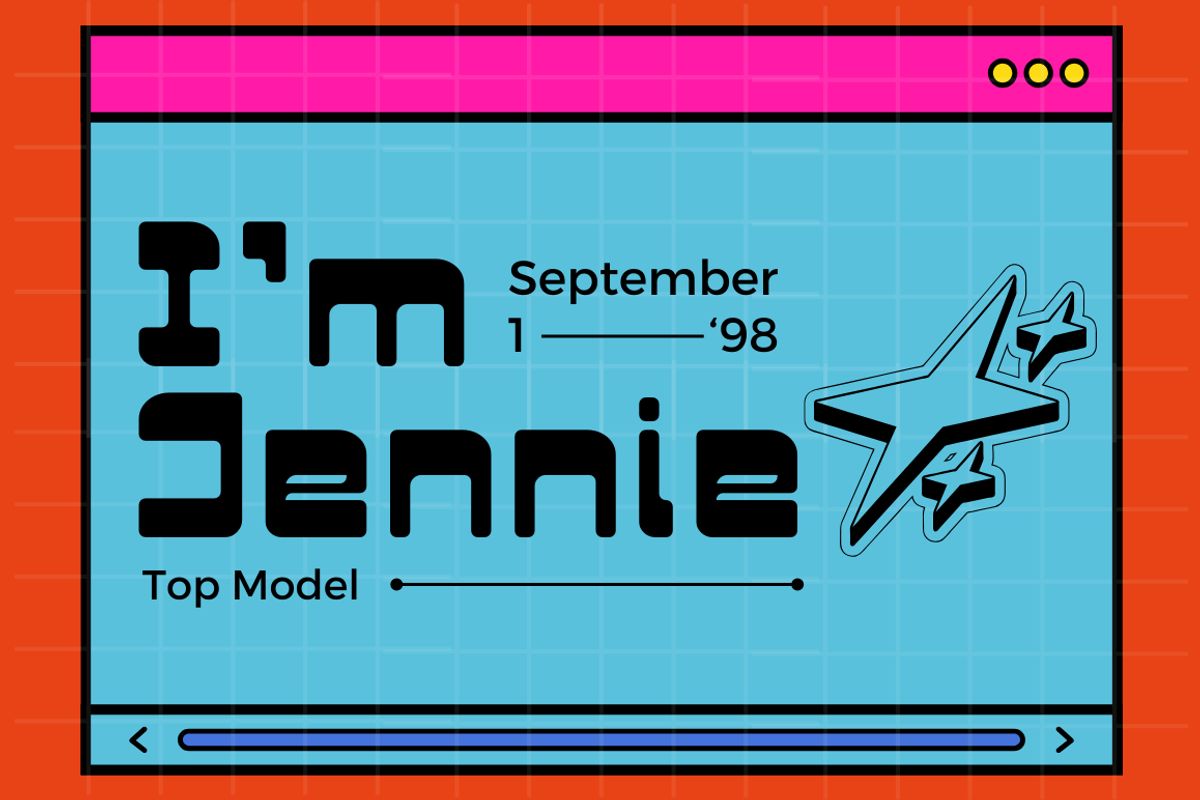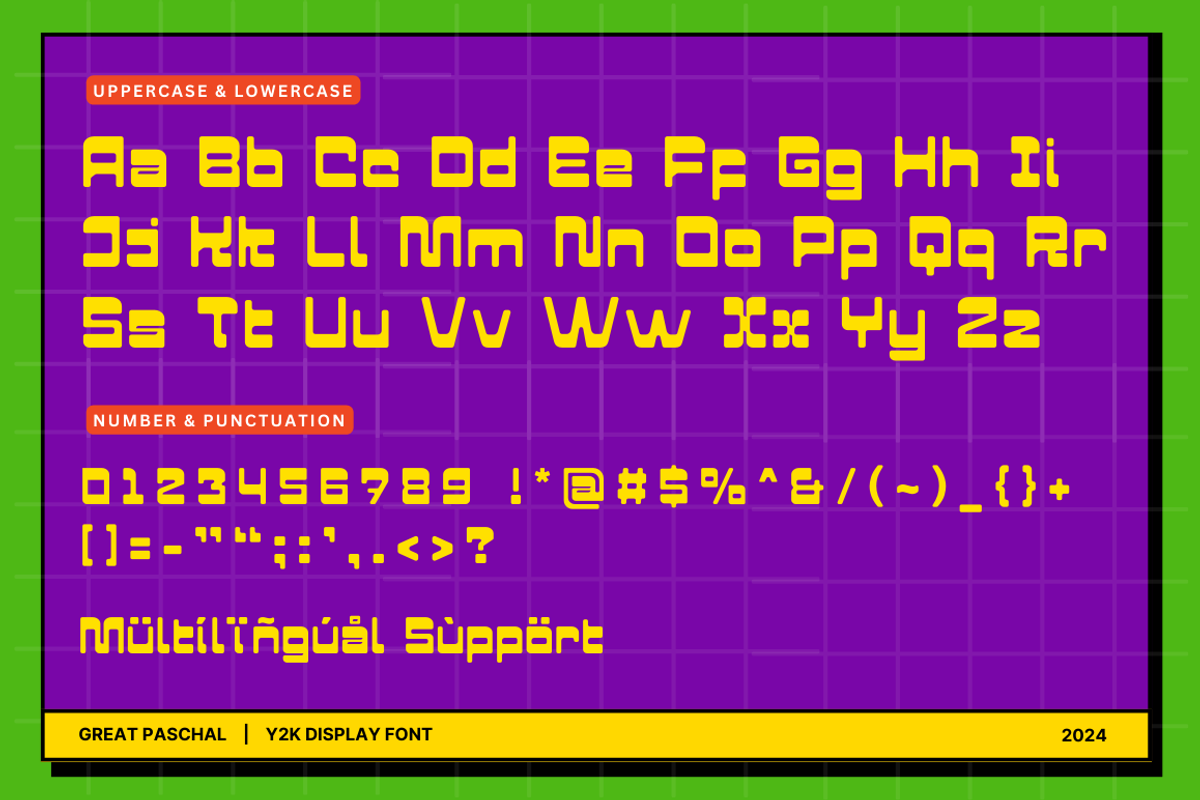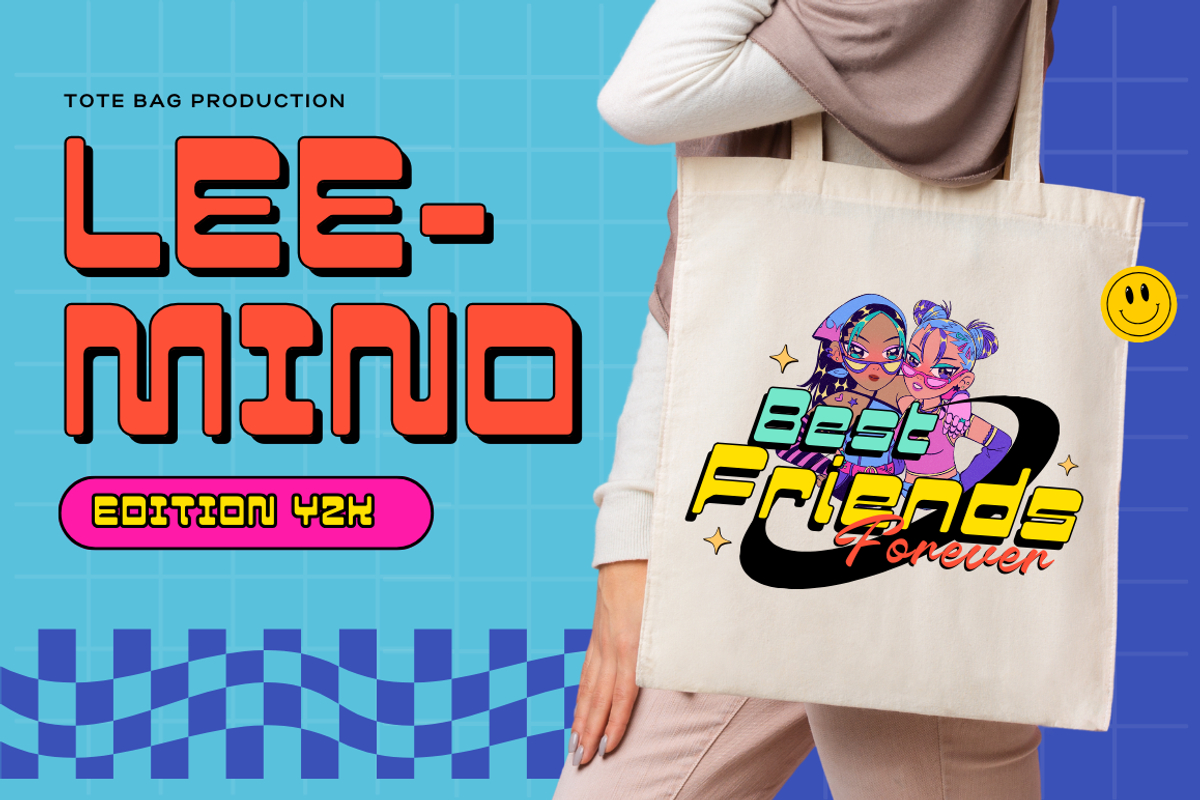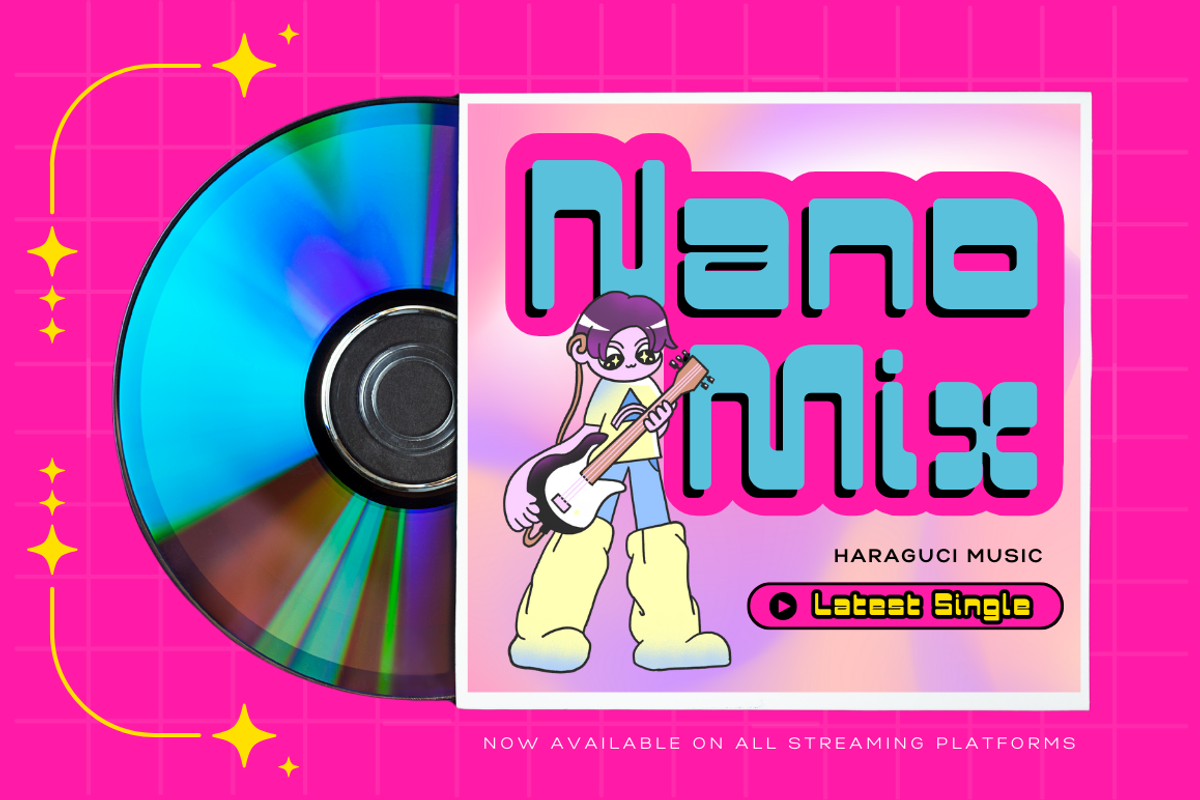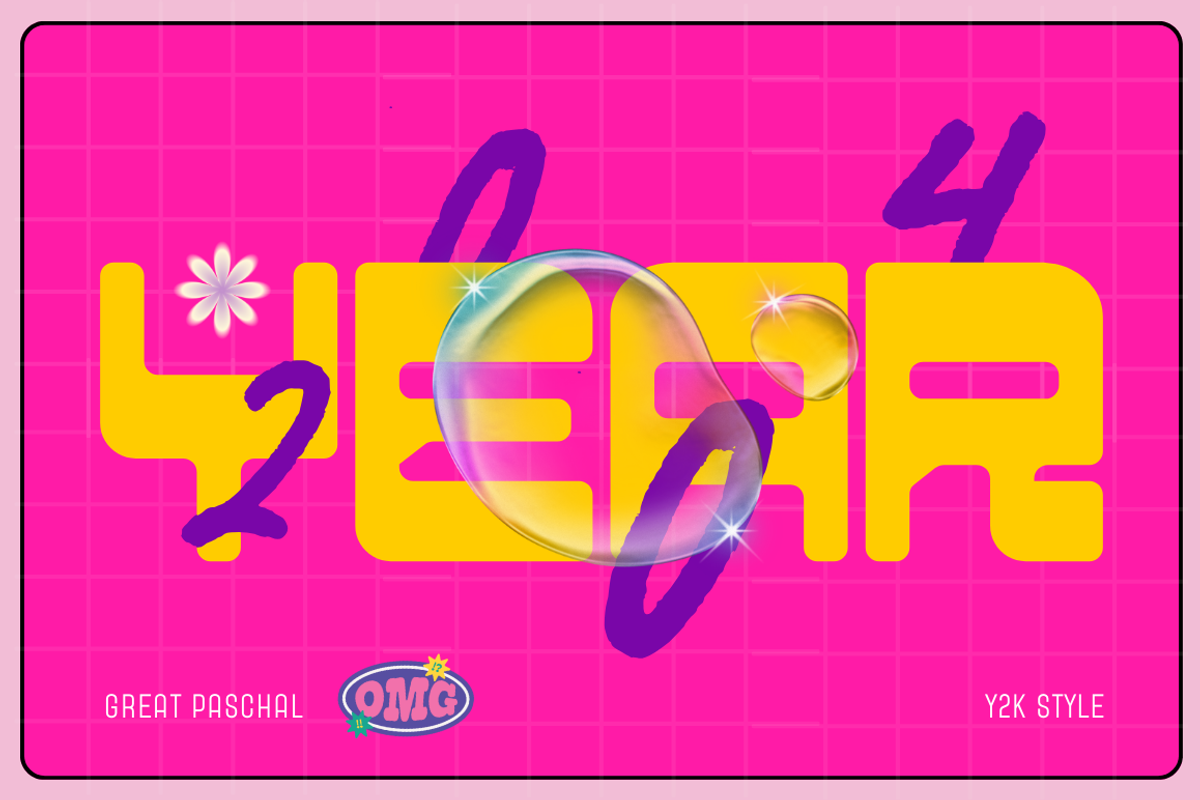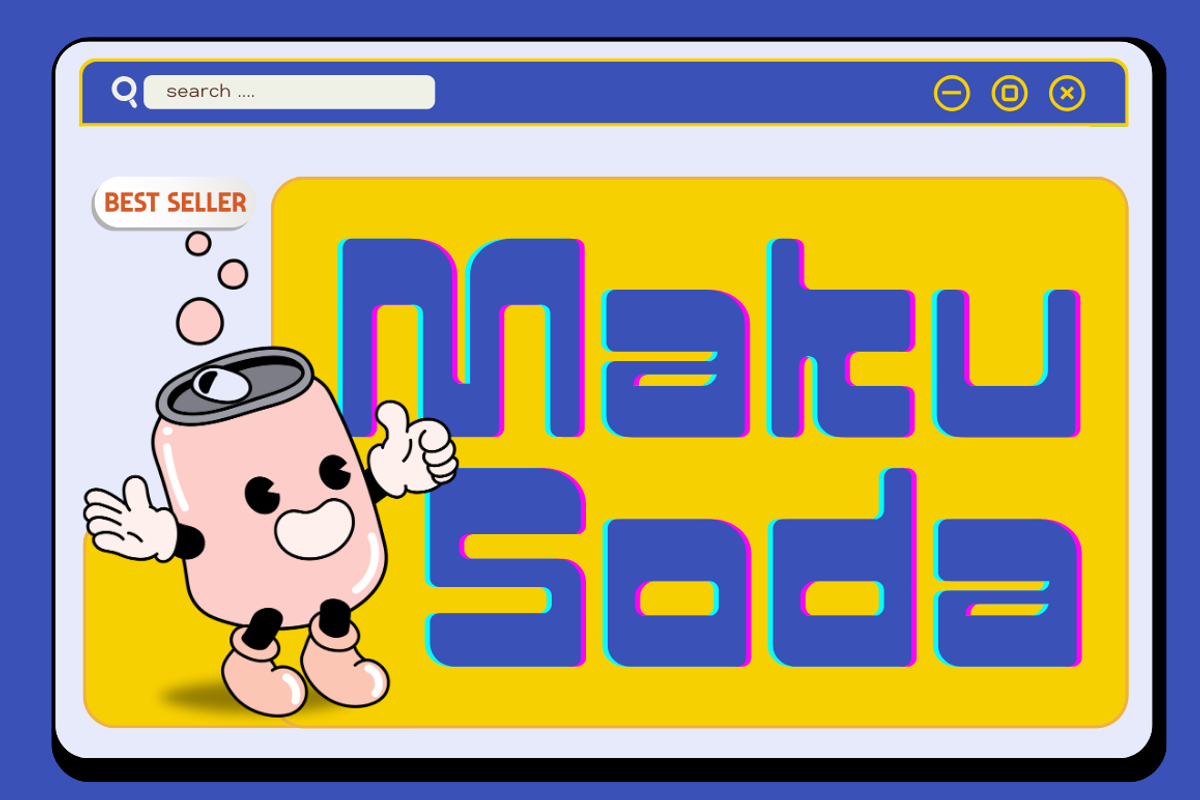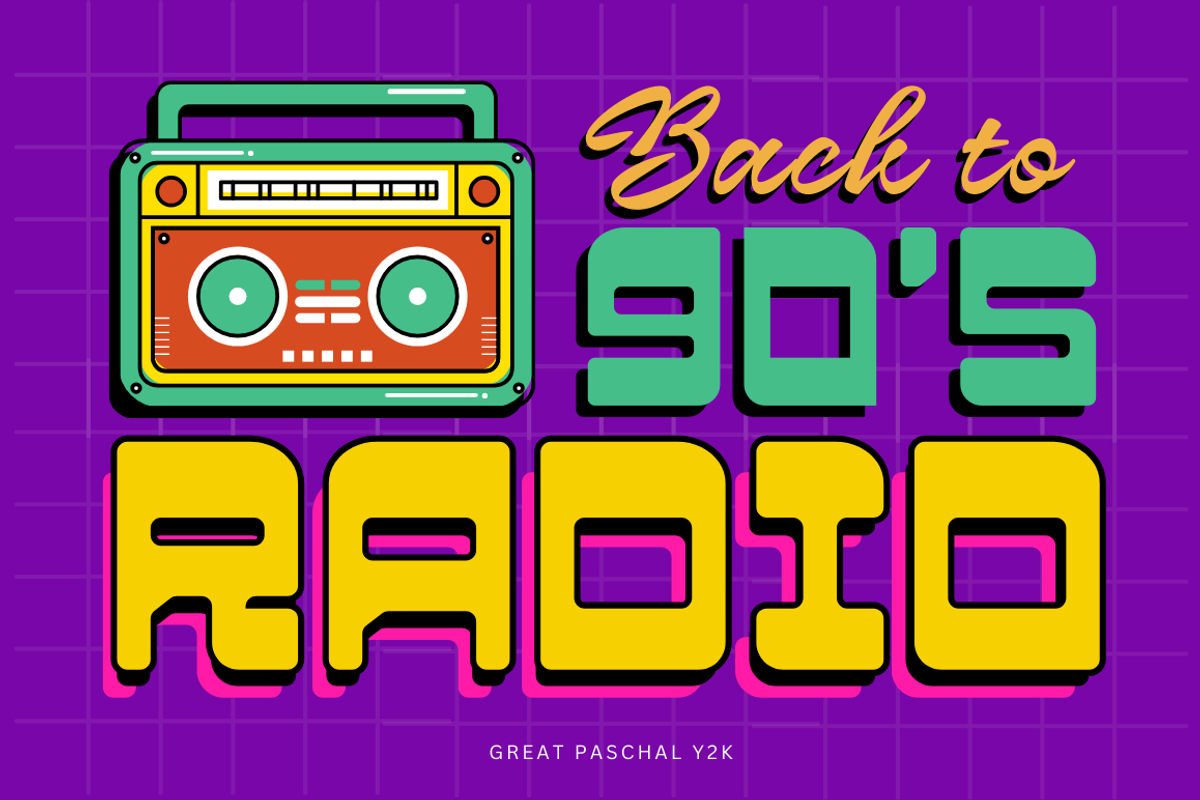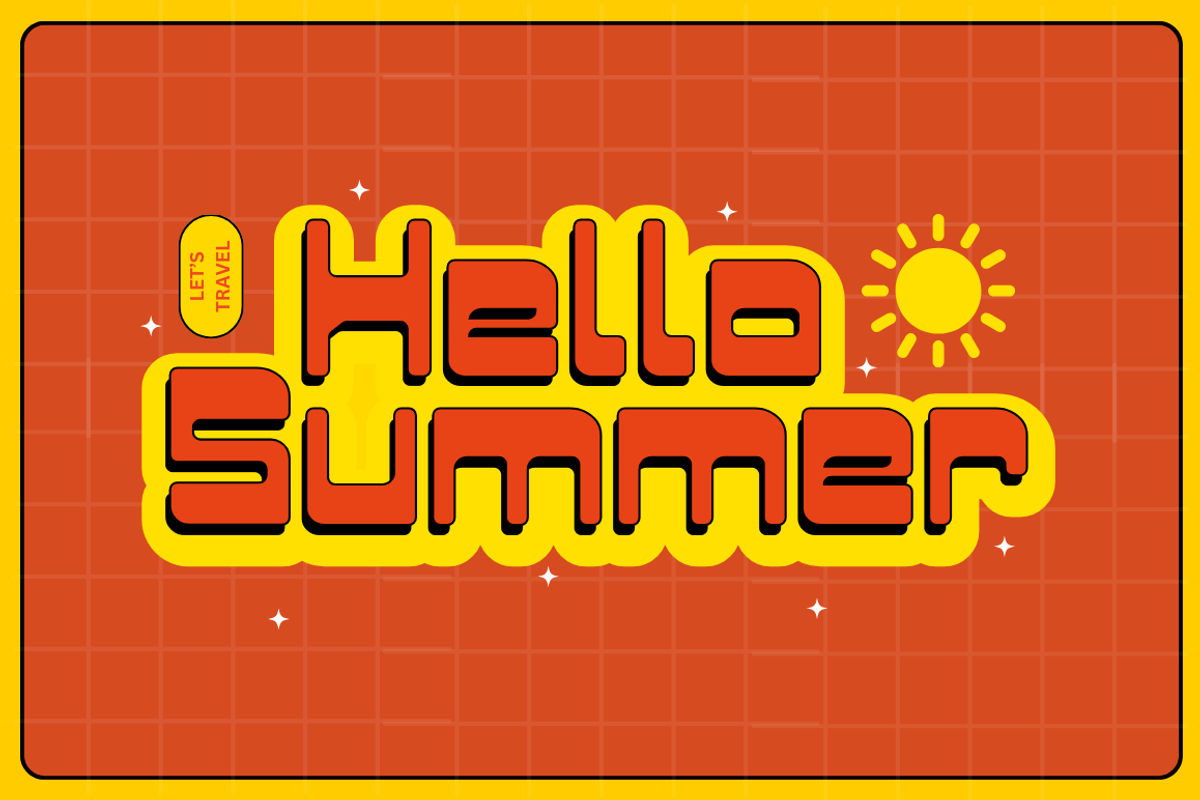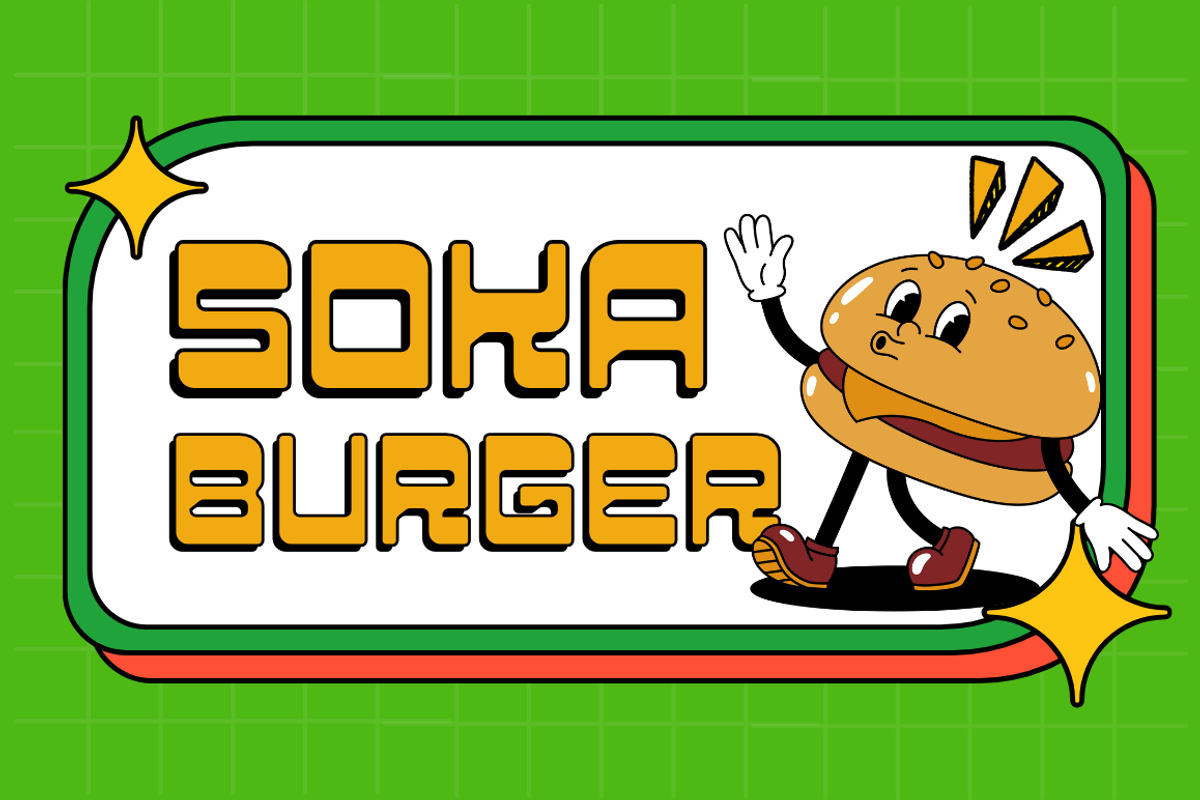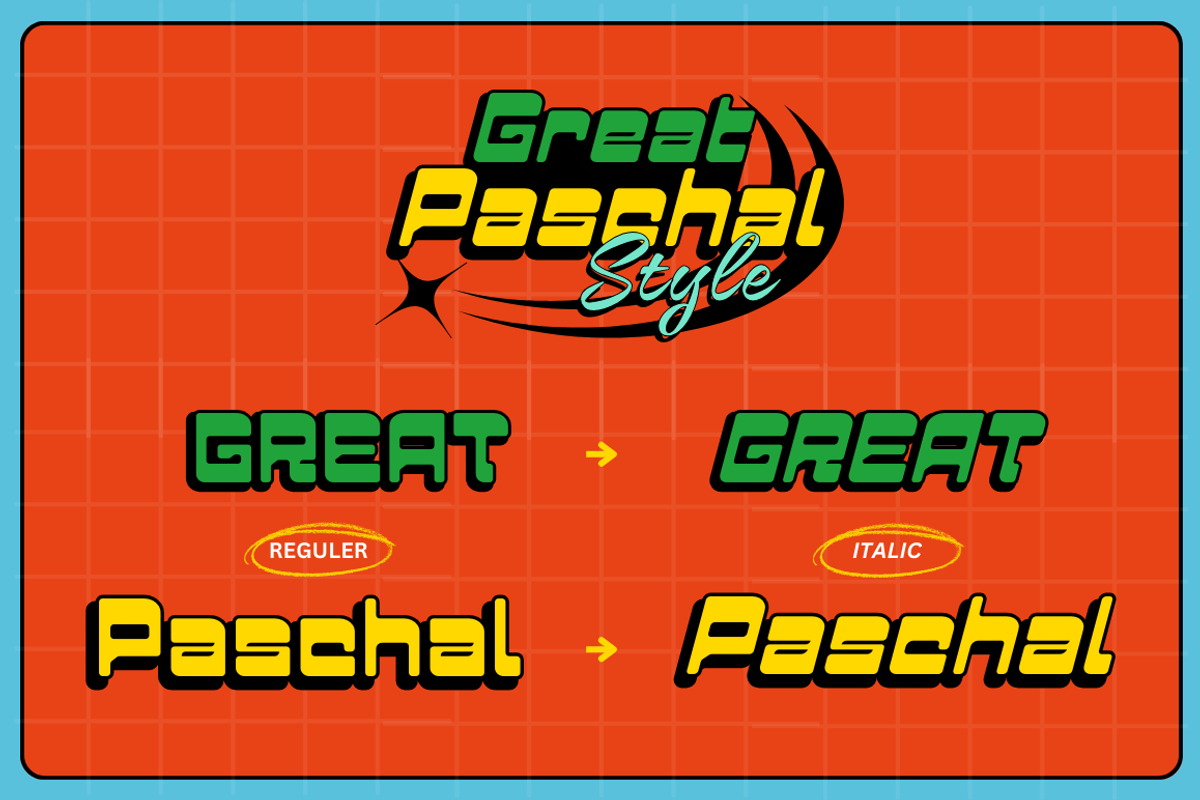
Great Paschal - Y2k Display Font
Introducing "Great Paschal," a vibrant Y2K display font that brings the nostalgic charm of the early 2000s to your design projects. This eye-catching font is available in two versatile styles—Regular and Italic—allowing you to create dynamic and engaging visuals. Perfect for posters, headlines, digital art, and branding, "Great Paschal" adds a bold and playful edge to any project. Embrace the retro-futuristic vibe with "Great Paschal" and make your designs stand out.